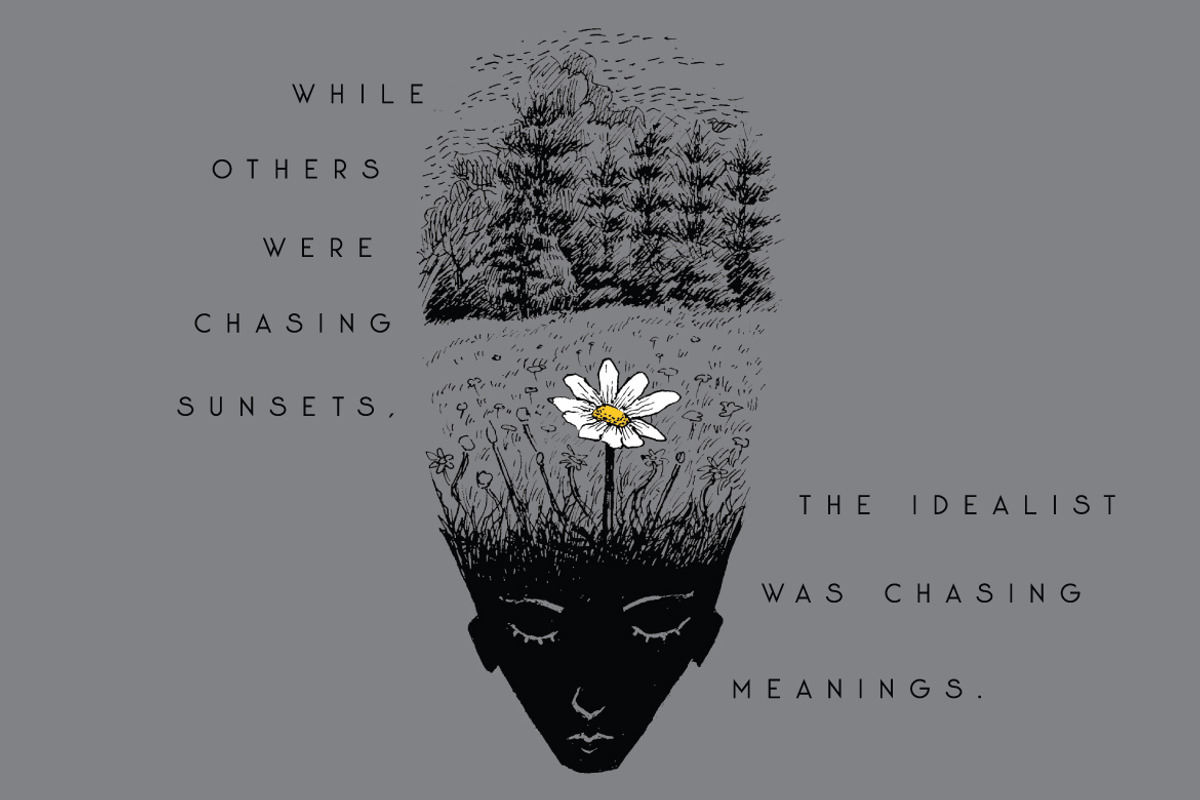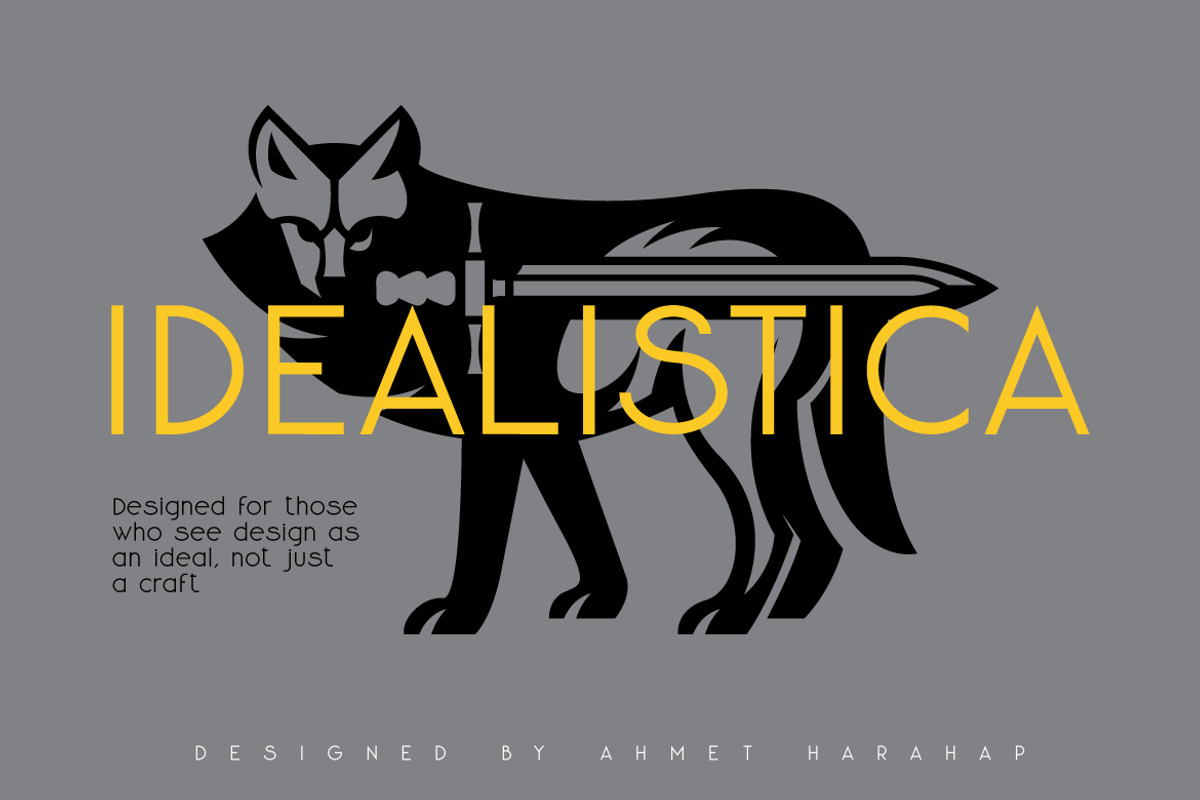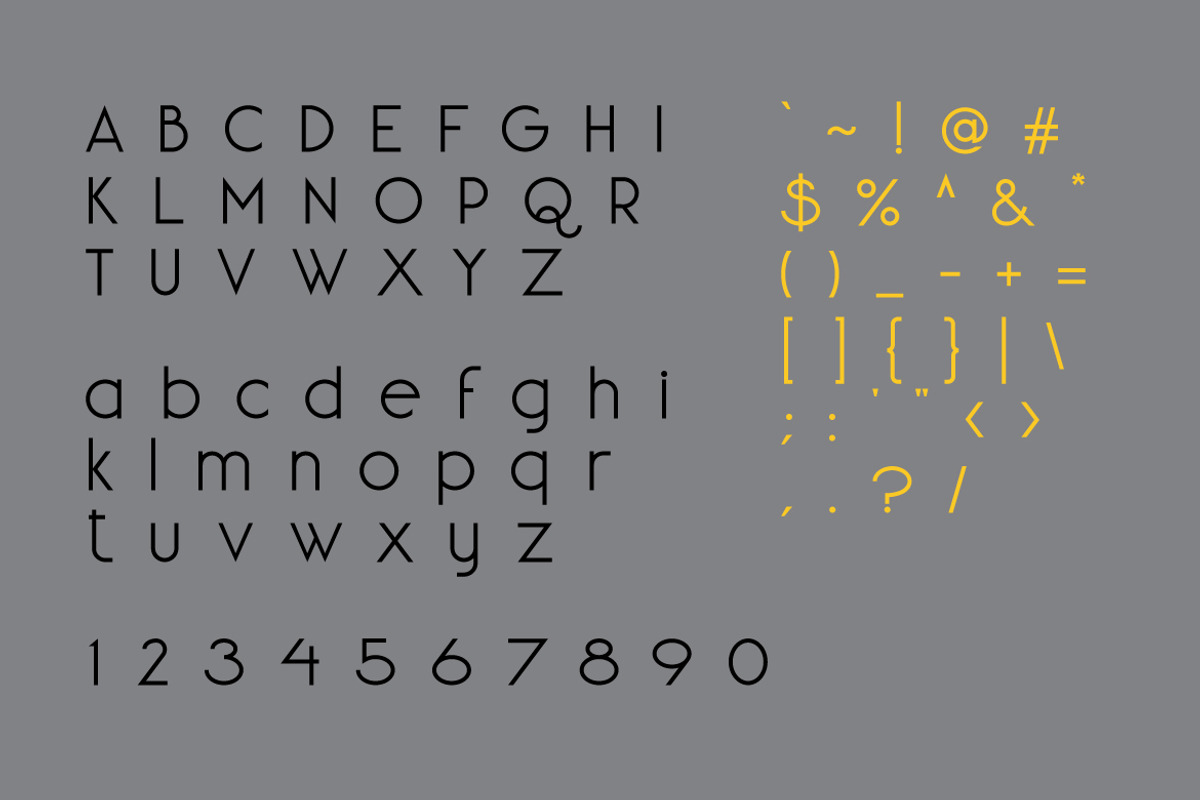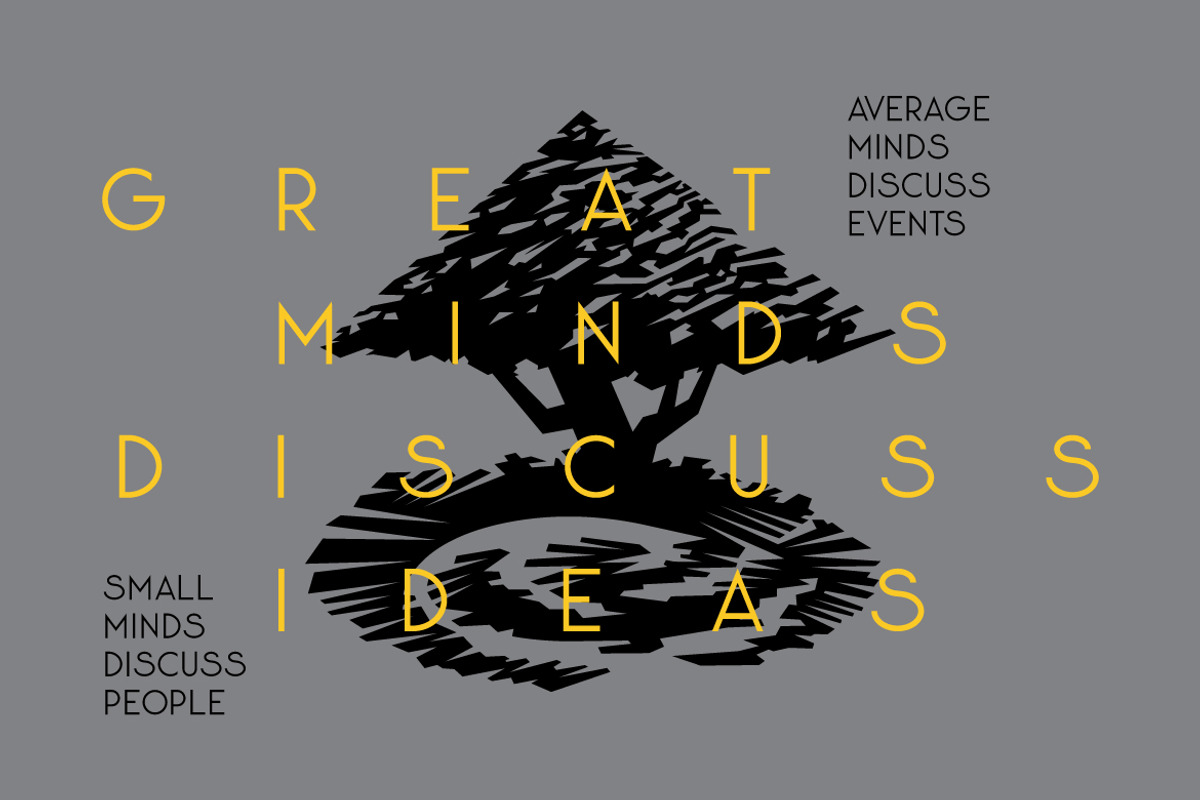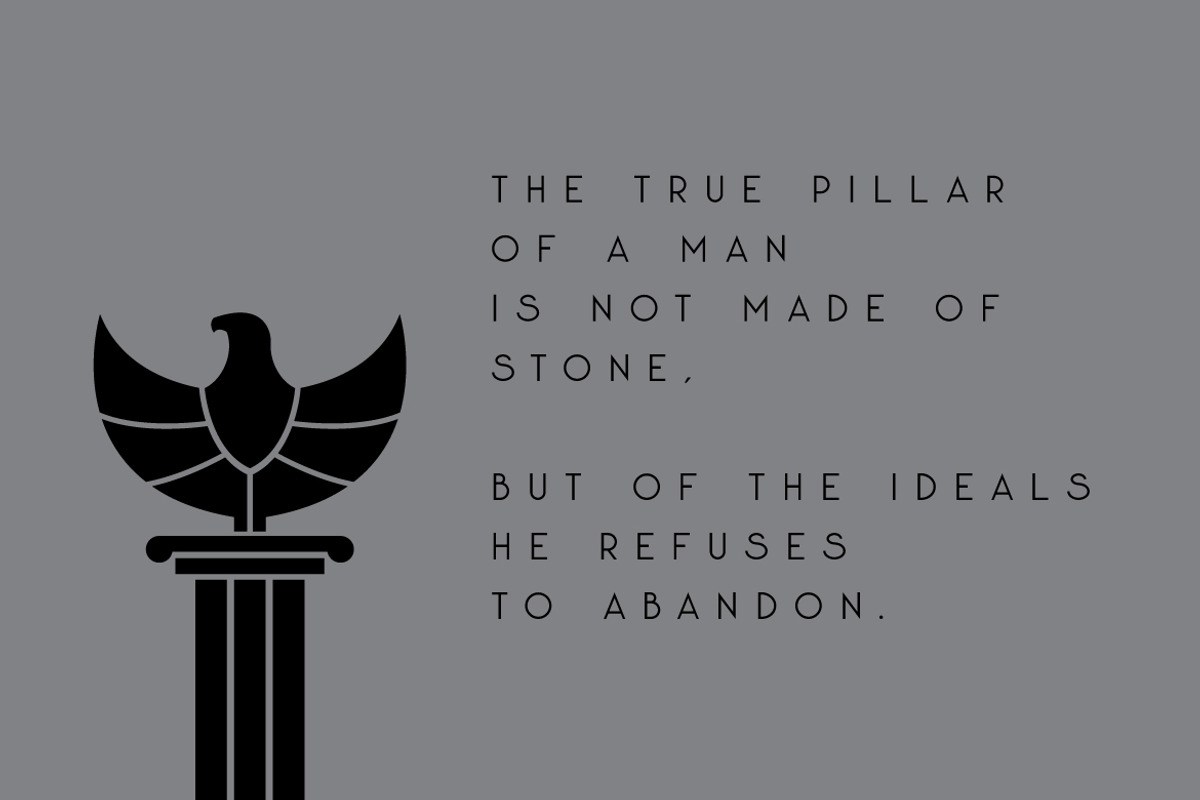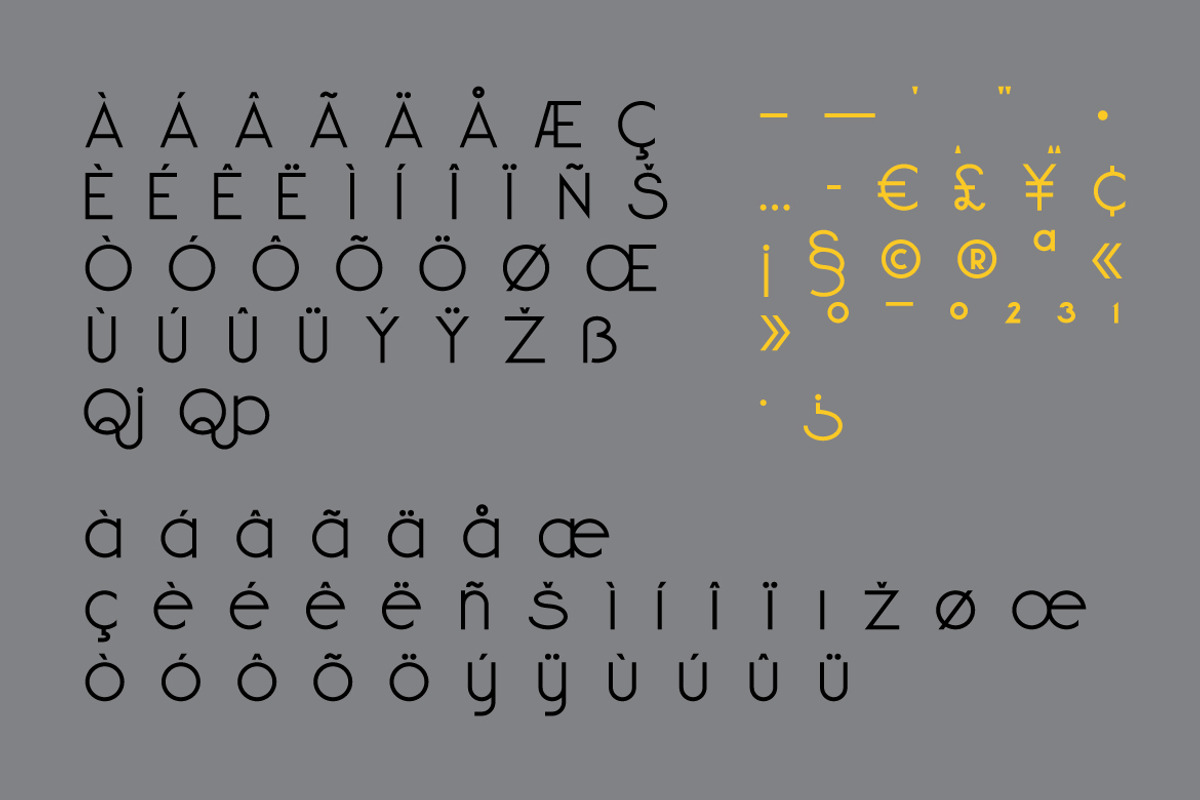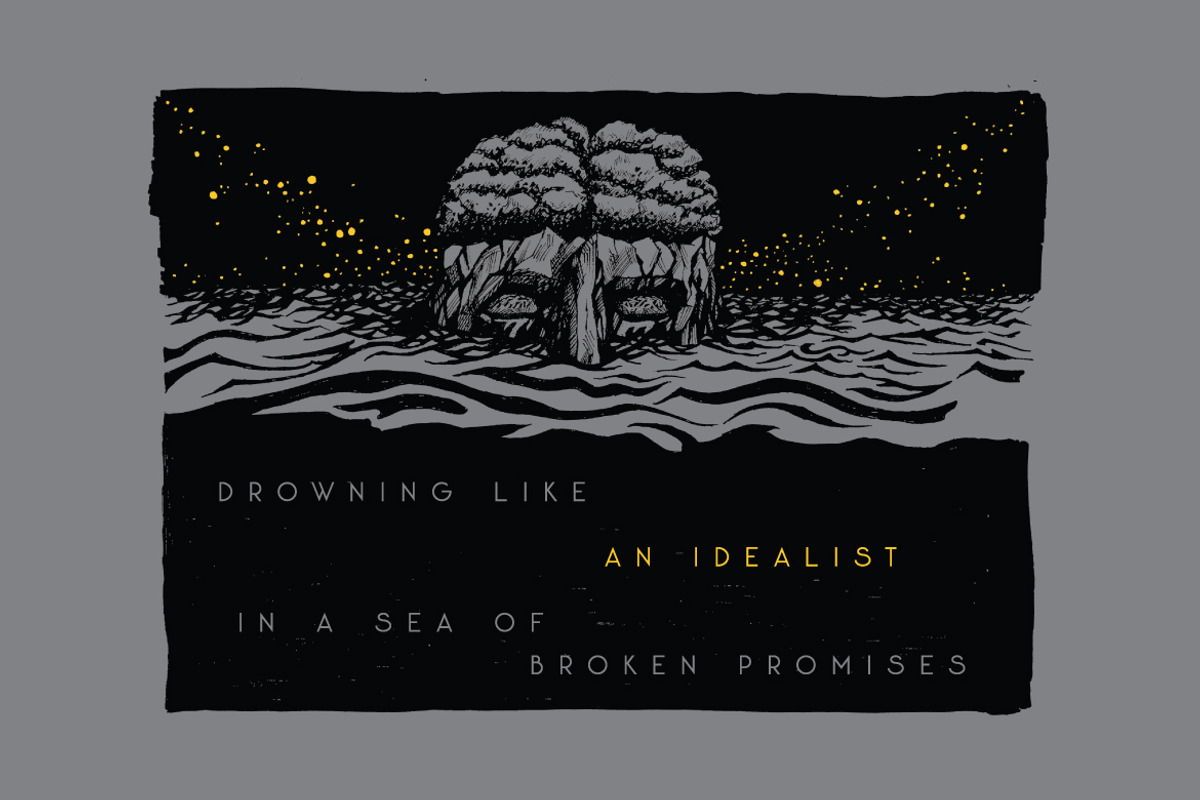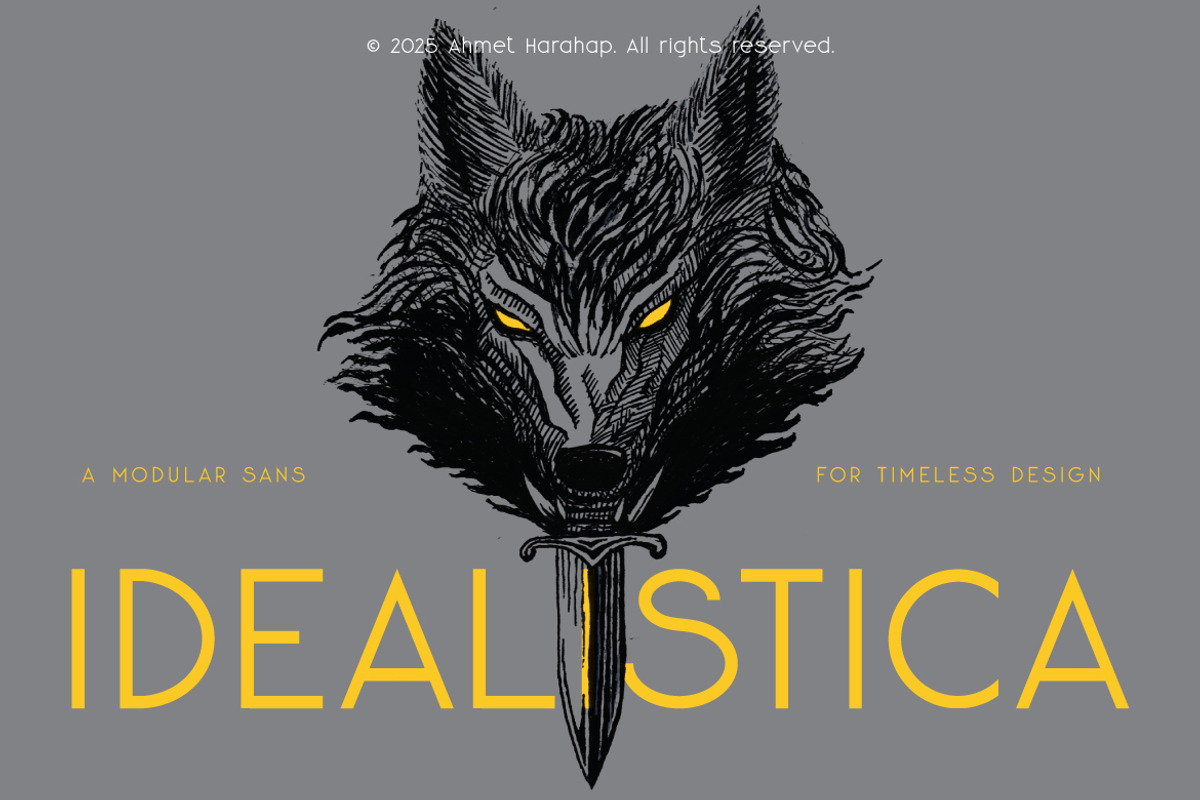
Idealistica Geometric Sans Serif
Idealistica is a geometric modular sans-serif designed for creators who believe in clarity, balance, and timeless form. Every curve and line is crafted with precision - giving your design a confident, modern, and idealistic spirit.
Built on simple geometric foundations, Idealistica blends mathematical structure with human warmth. It's versatile enough for branding, editorial design, packaging, and digital interfaces. Whether you're shaping a bold headline or refining minimal layouts, this font brings harmony and conviction to every letter.
Perfect for logo design, posters, editorial, and web design. Designed for those who see design as an ideal, not just a craft.